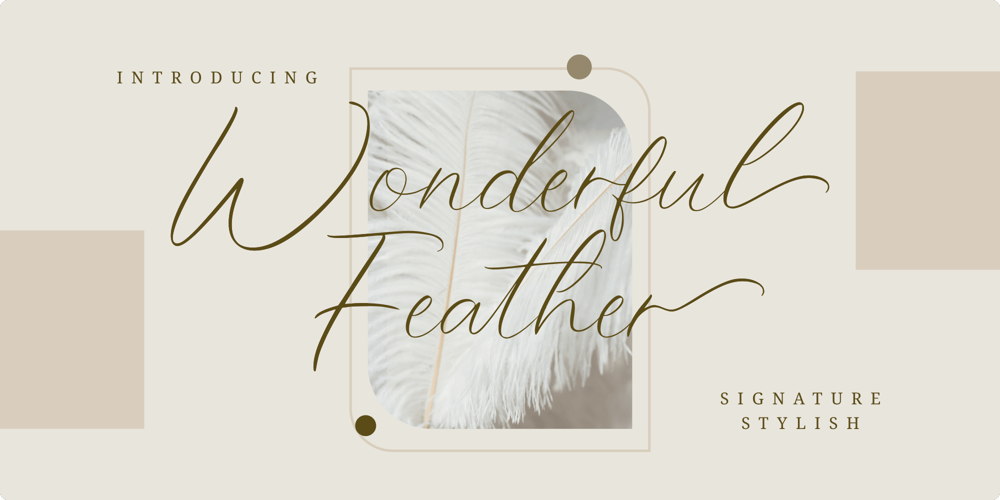
Wonderful Feather Font Family was designed by Nur Rohman Rizki and published by Riasyletter_Studio. Wonderful Feather contains 1 styles and family package options. Wonderful Feather This font is an elegant and stylish font, made from natural handwriting, and carefully designed to get maximum results and is perfect for pairing with serif and sans serif fonts.Wonderful Feather is perfect for branding projects, logo, wedding designs, social media posts, advertisements, product packaging, product designs, label, photography, watermark, invitation, stationery and any projects that need handwriting taste.What’s Included :– Web Fonts– Ligature & Alternate– Works on PC & Mac– Simple installations– Accessible in the Adobe Illustrator, Adobe Photoshop, Adobe InDesign, even work on Microsoft Word.– PUA Encoded Characters – Fully accessible without additional design software.– Fonts include multilingual support for: Albanian, Basque, Breton, Chamorro, Danish, Dutch, English, Finnish, Frisian, Galician, Italian, Malagasy, Norwegian, Portuguese, Spanish, Alsatian, Aragonese, Arapaho, Arrernte, Asturian, Aymara, Bislama, Cebuano, Corsican, Fijian, French_creole, Genoese, Gilbertese, Greenlandic, Haitian_creole, Hiligaynon, Hmong, Hopi, Ibanag, Iloko_ilokano, Indonesian, Interglossa_glosa, Interlingua, Irish_gaelic, Jerriais, Lojban, Lombard, Luxembourgeois, Manx, Mohawk, Norfolk_pitcairnese, Occitan, Oromo, Pangasinan, Papiamento, Piedmontese, Potawatomi, Rhaeto-romance, Romansh, Rotokas, Sami_lule, Sardinian, Scots_gaelic, Seychelles_creole, Shona, Sicilian, Somali, Southern_ndebele, Swahili, Swati_swazi, Tagalog_filipino_pilipino, Tetum, Tok_pisin, Uyghur_latinized, Volapuk, Walloon, Warlpiri, Xhosa, Yapese, Zulu,Hope you enjoy our font!